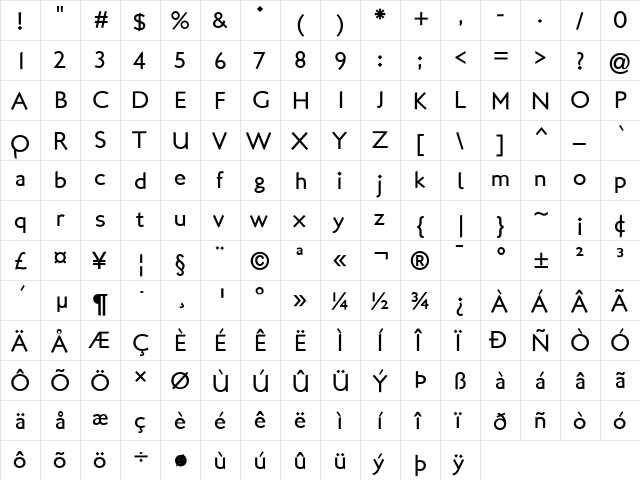
LondonBetween Regular
Design Context for LondonBetween Typeface
LondonBetween takes a measured approach to typography — its balanced proportions and neutral character make it a reliable workhorse for both digital and print work.